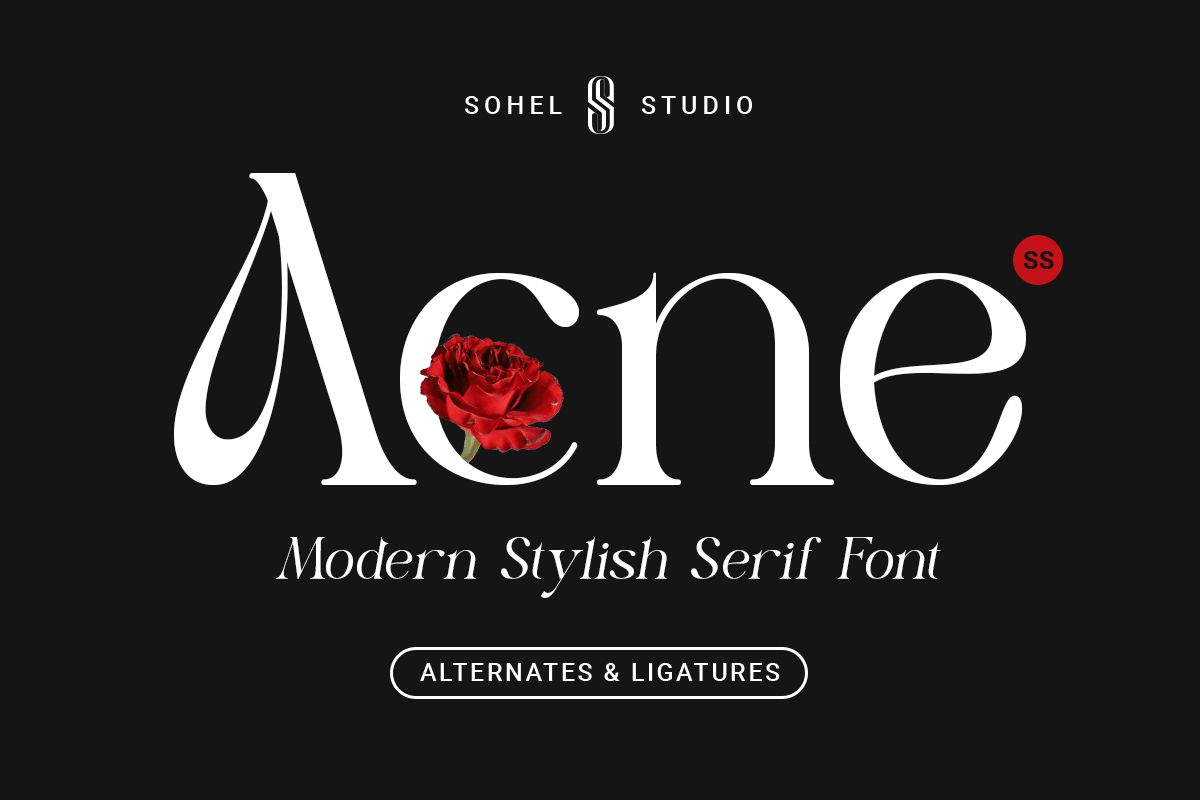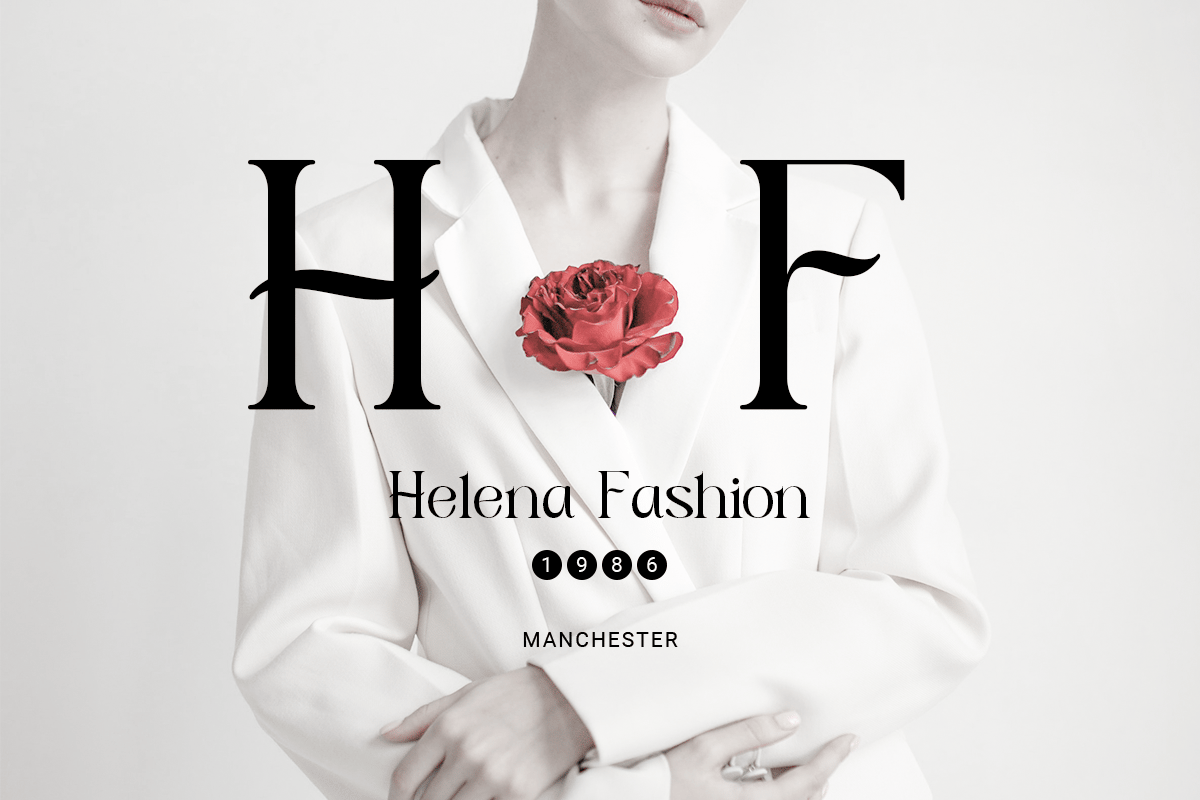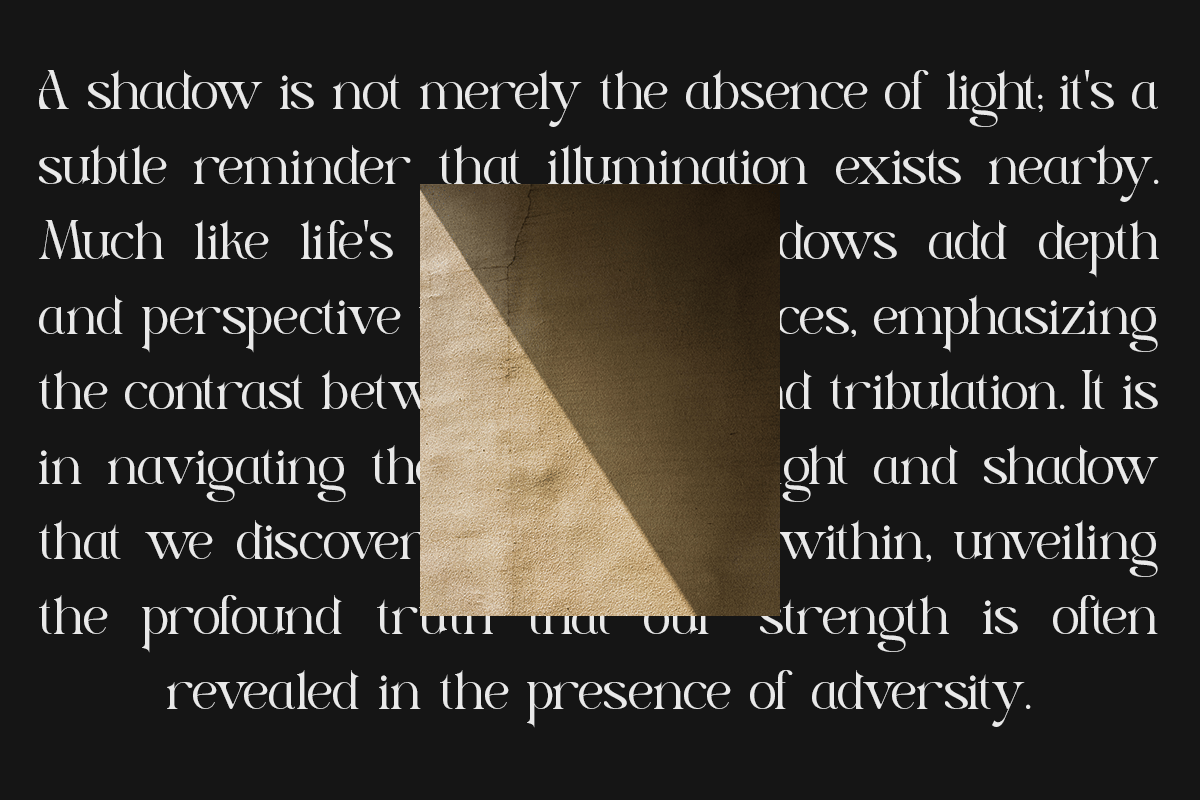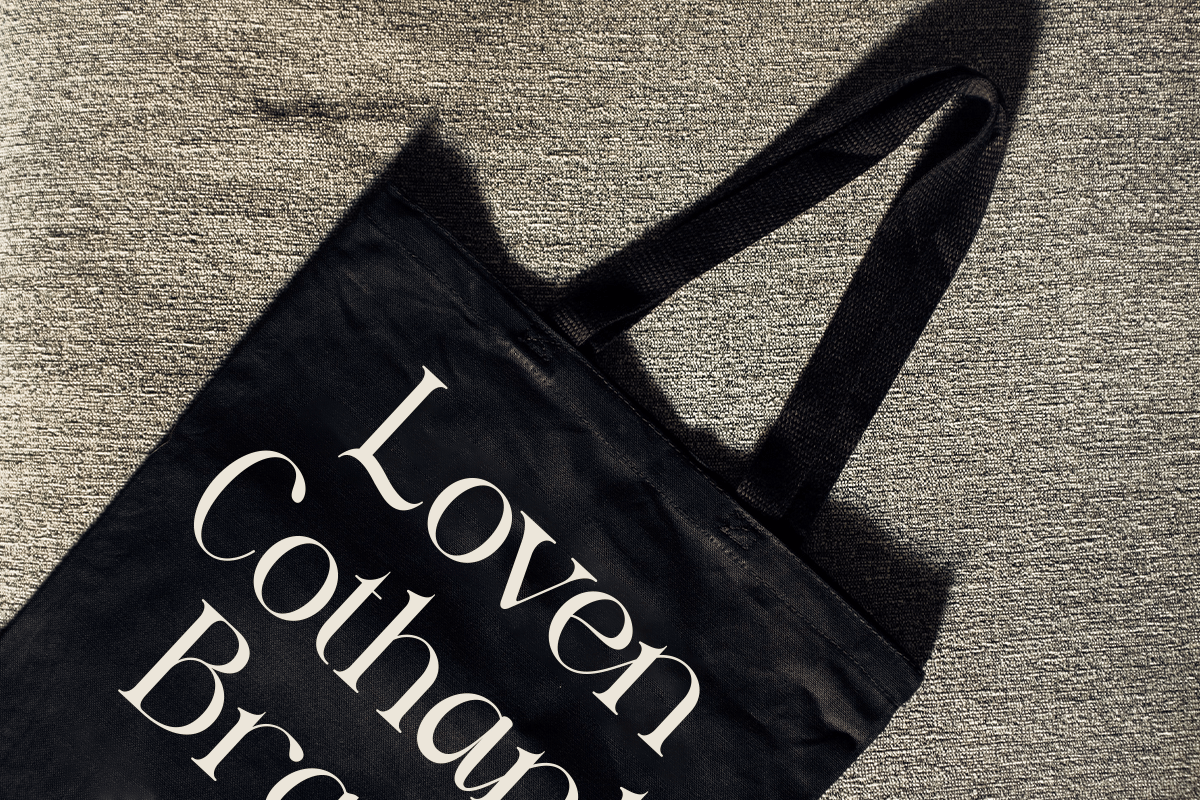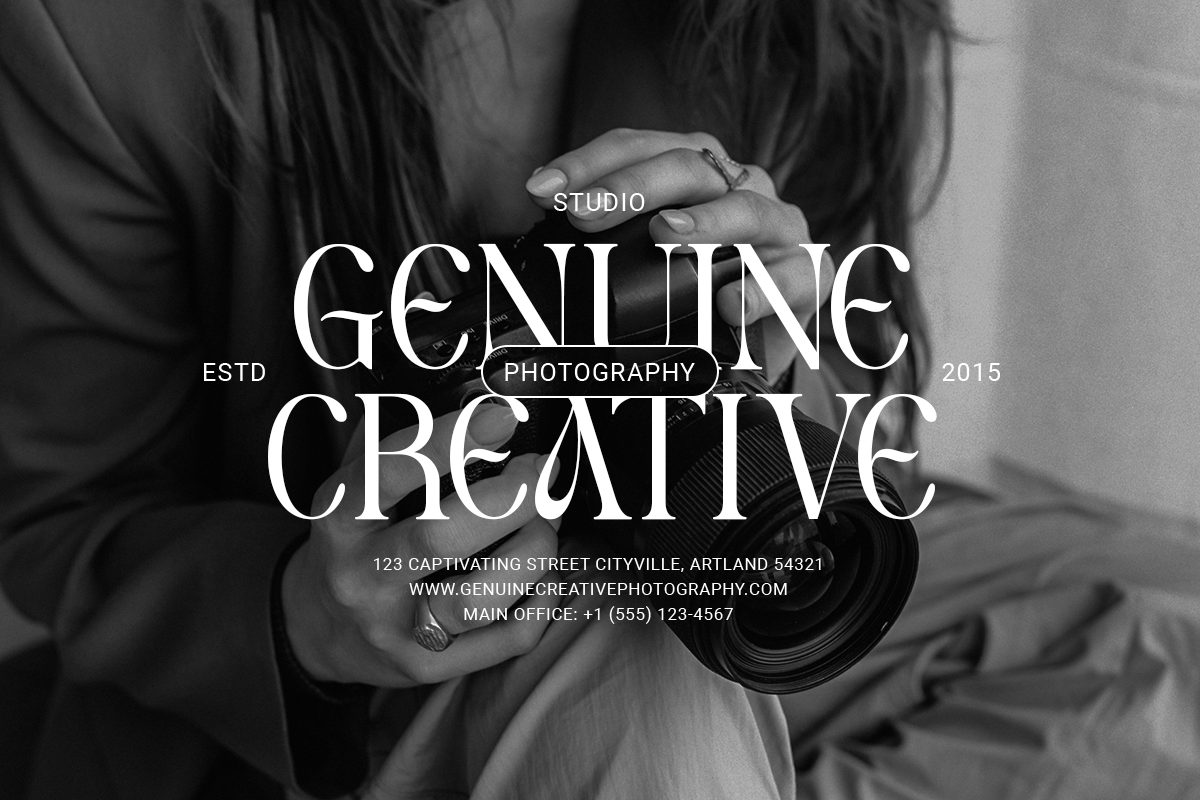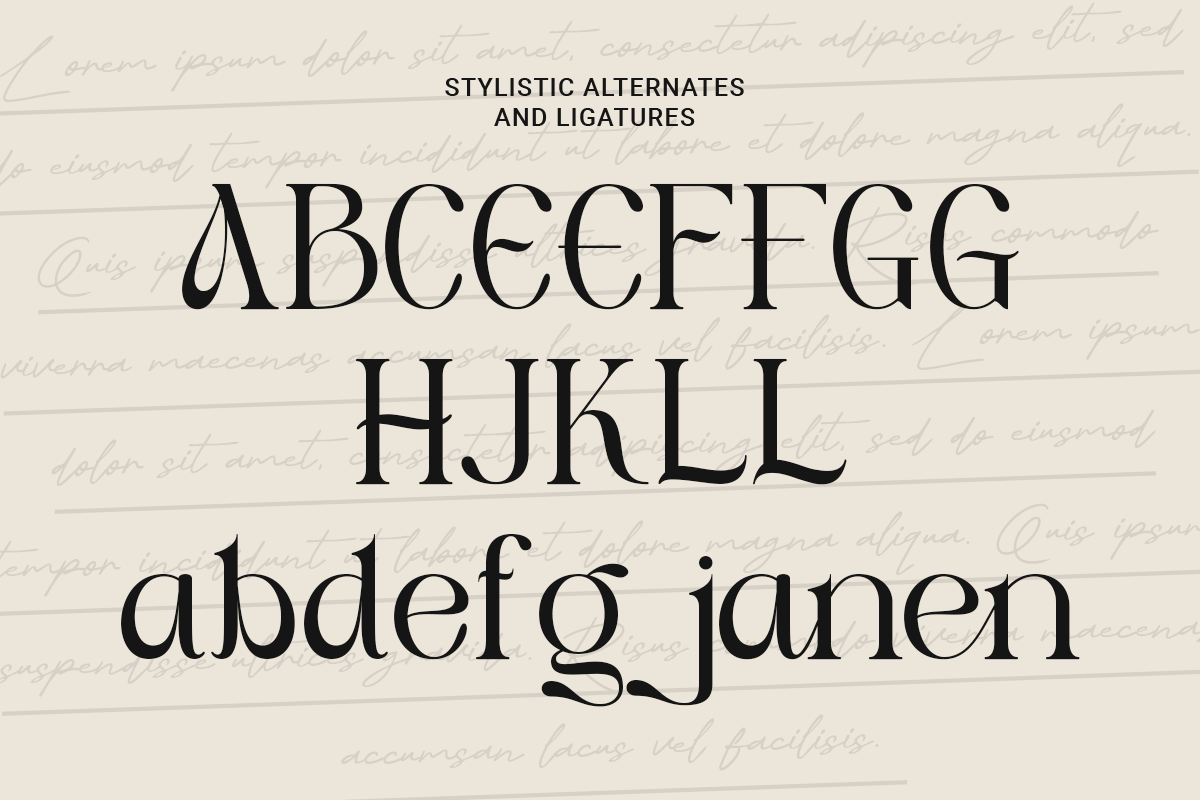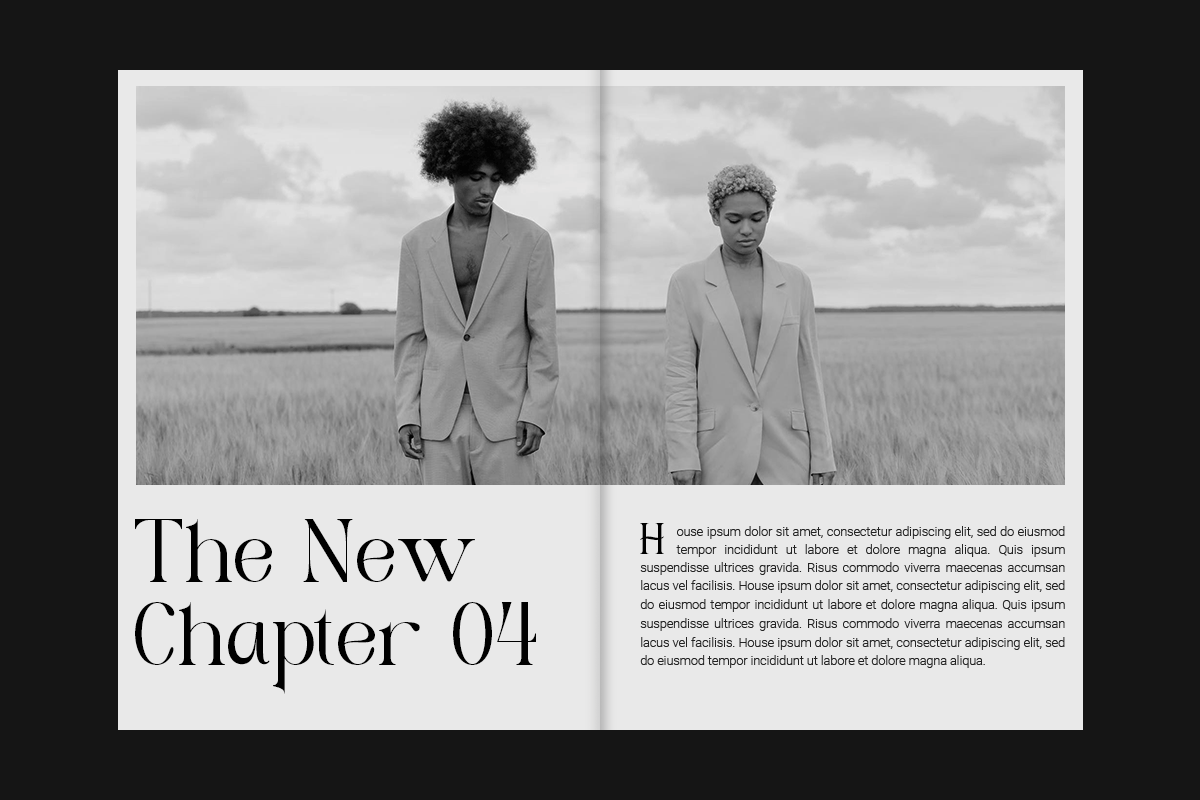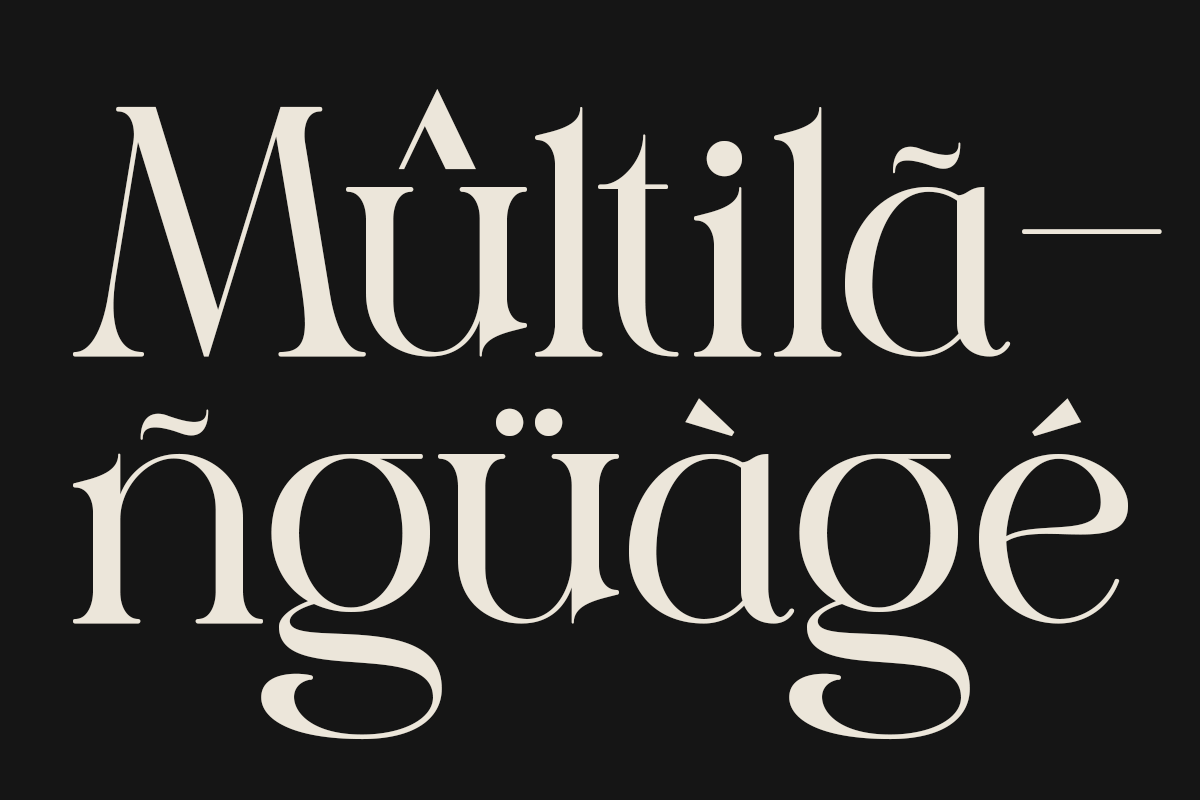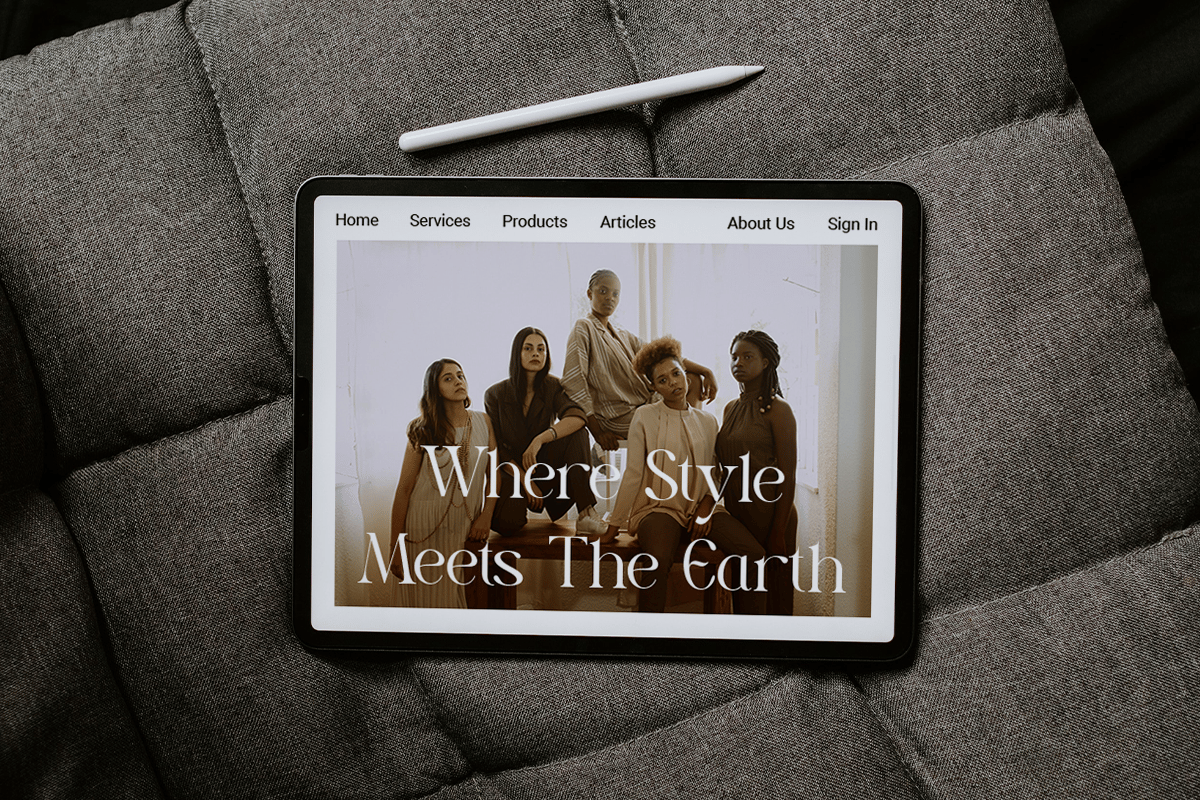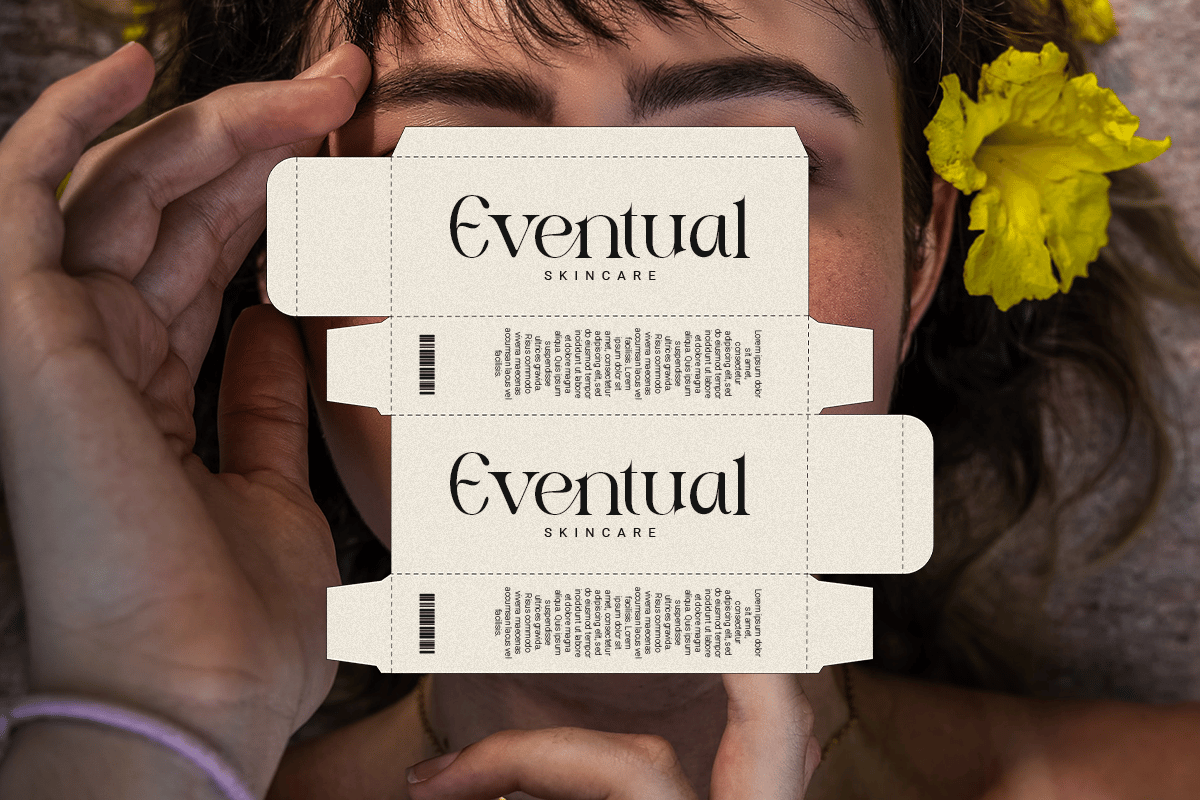
Acne – Modern Fancy Typeface
Introducing Acne, a modern stylish serif font that seamlessly blends elegance with a futuristic edge. Designed to bring a premium touch to any project, Acne offers a minimalistic yet cinematic appeal that’s perfect for contemporary designs.
Acne is not just any serif font. With features like alternates and ligatures, it provides versatility for various design applications, from corporate branding to funky college projects. The inclusion of cursive and Helvetica-inspired elements in some characters gives it a unique and modern twist, making it ideal for any contemporary design need.
Inspired by the aesthetics of art deco and future, Acne strikes a balance between classic and modern. It’s perfect for projects with themes of minimalism, fancy, or love, and it also shines in tropical or beach-themed designs that require a touch of fanciness and premium quality.
Whether you’re working on logo designs, wedding invitations, movie posters, or other design projects, Acne brings a sophisticated and stylish touch. Its modern minimal and thin elegance will enhance the aesthetic value of any creation.
Discover the flexibility and beauty of Acne, a font that brings you into the future of design with chic and timeless style.
Acne Features:
- Alternates & Ligatures
- Accented characters